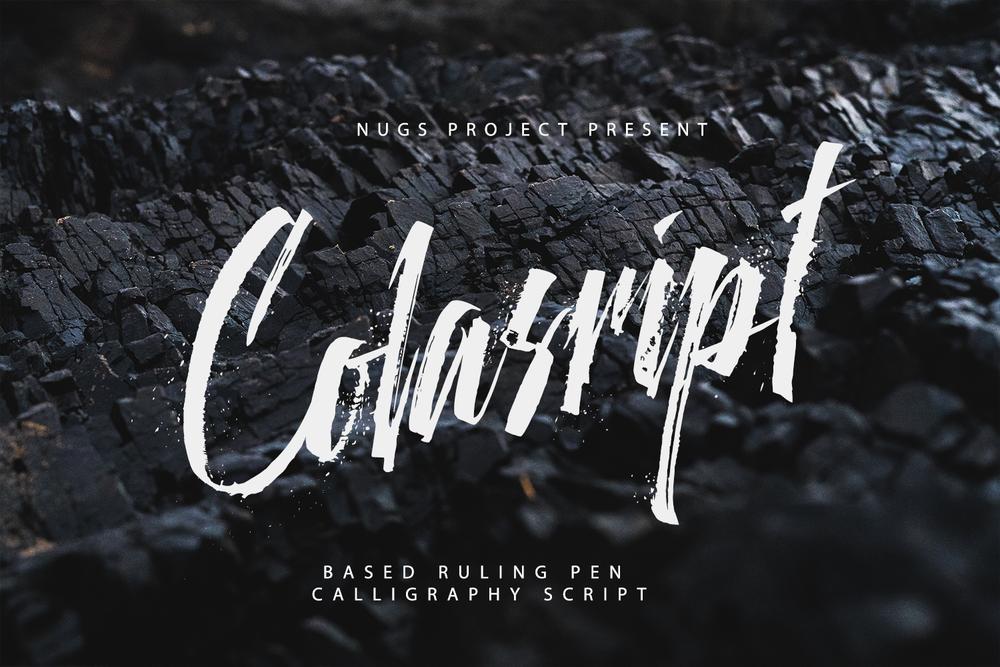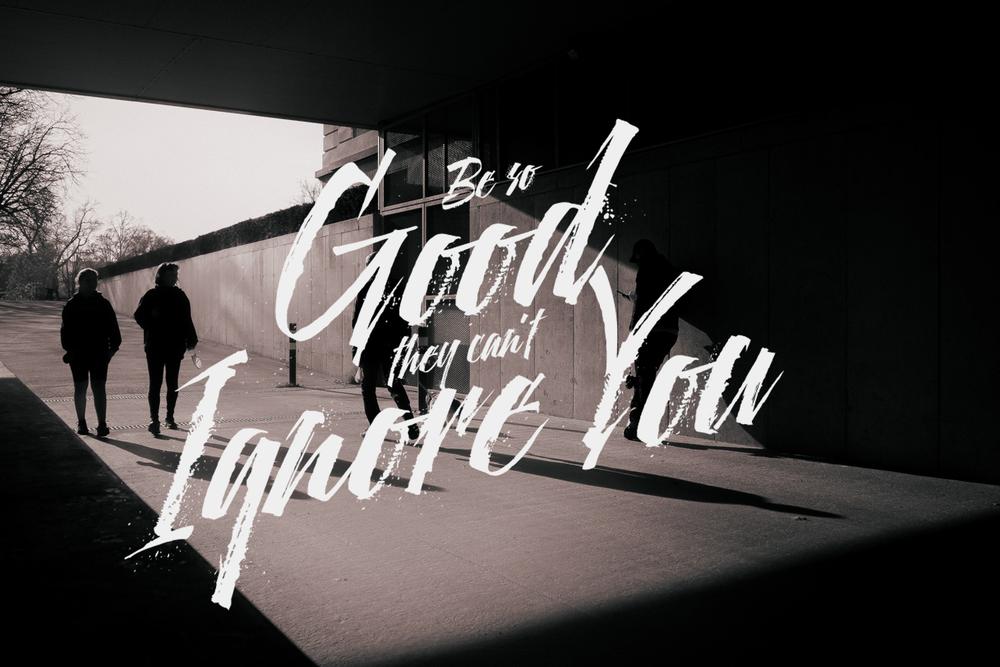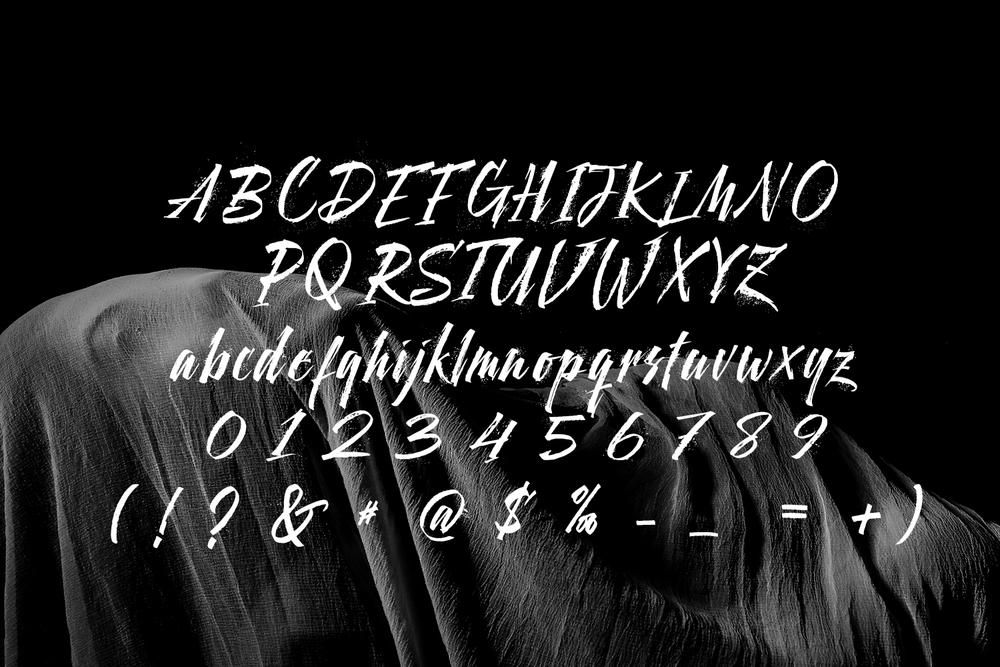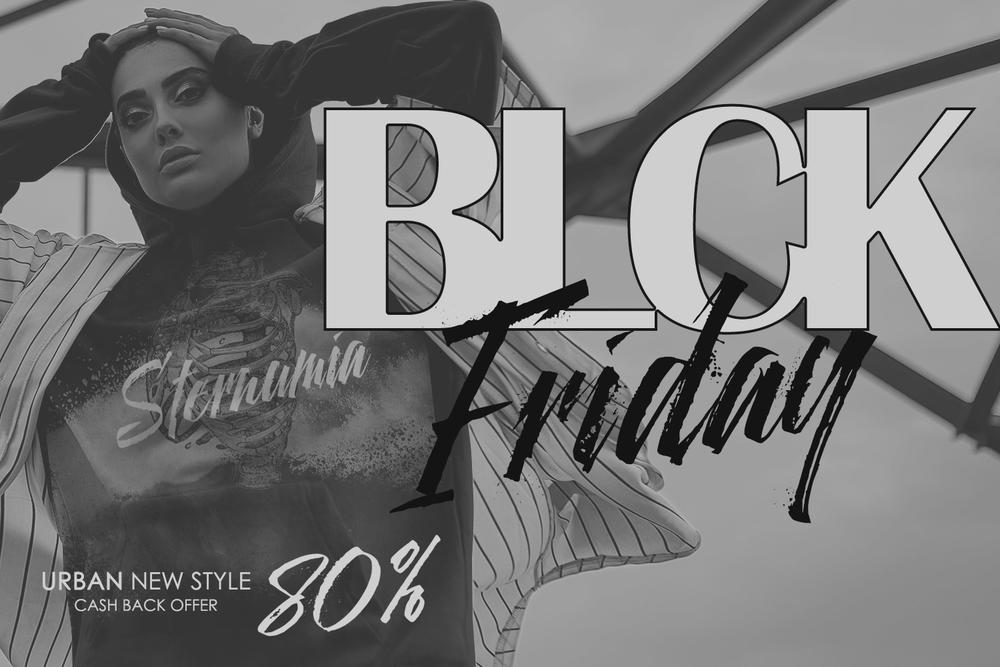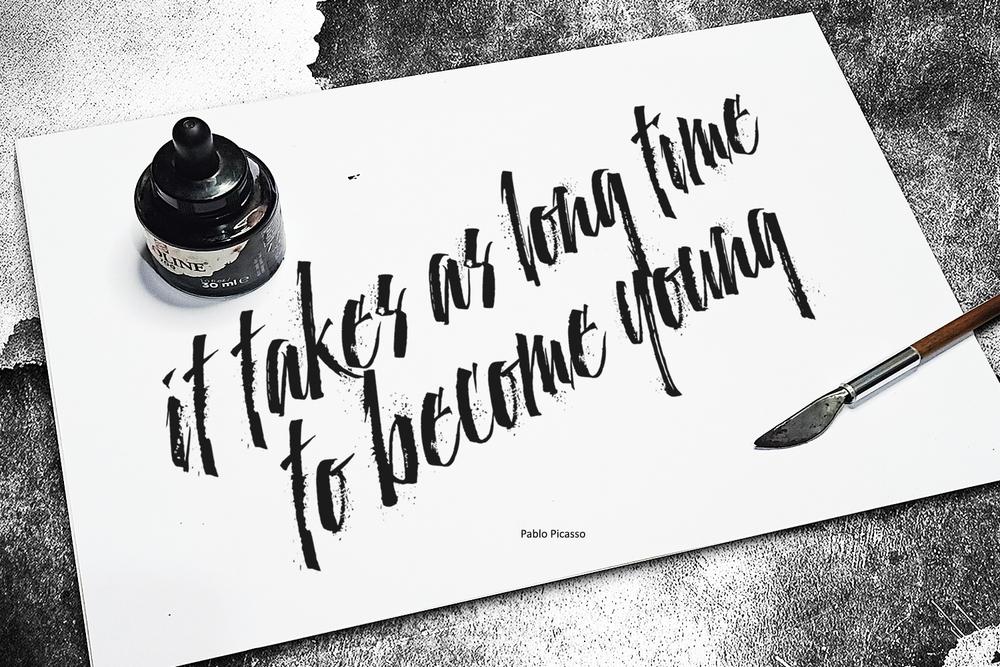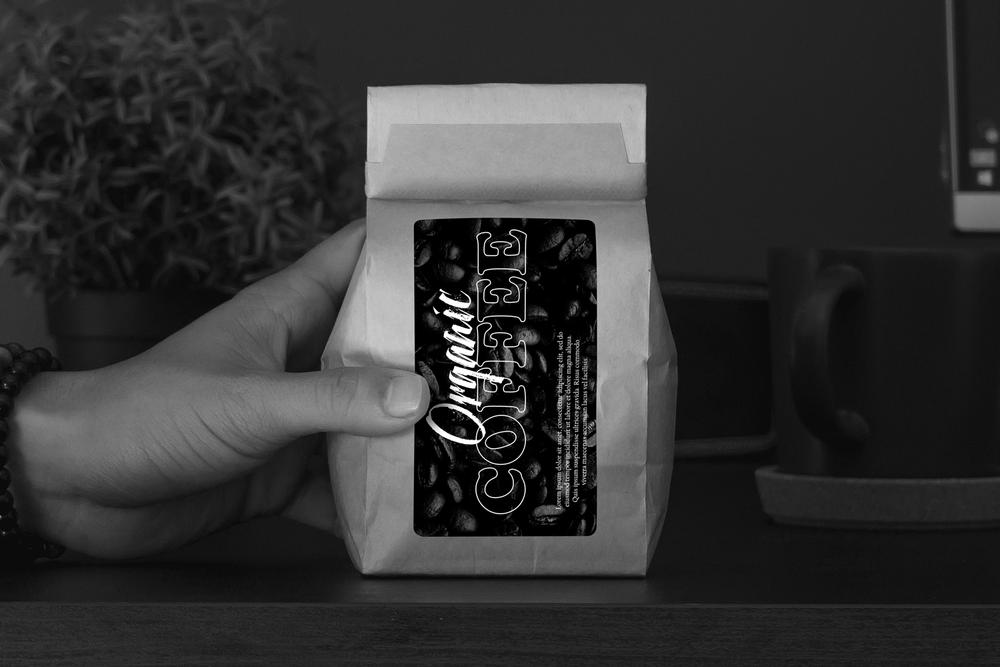
The Colascript is a font that is made using a Ruling pen and hand scratches, processed to produce amazing vectors, suitable for the promotion of products, shirts, mugs, business cards, logo designs, poster design, social media, typographic quotes over photos, book covers, and packaging design